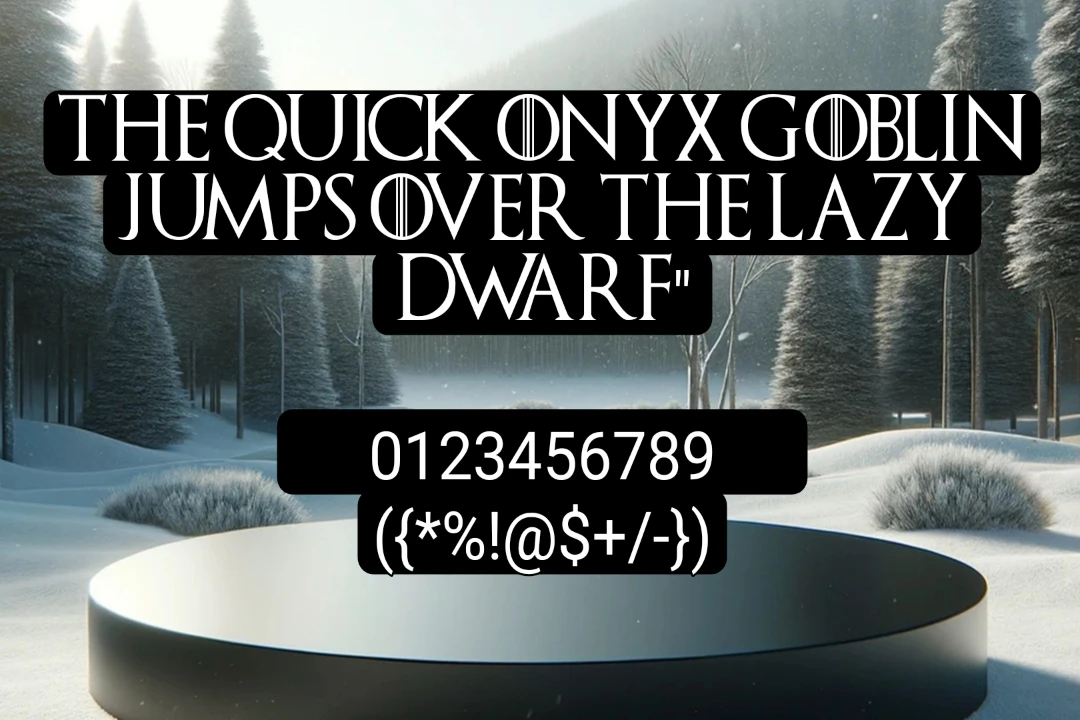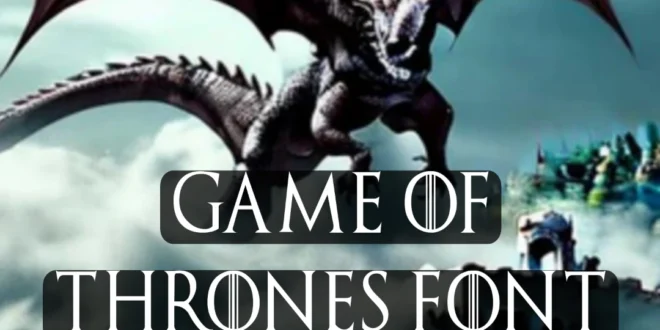
Game of Thrones Font: A Comprehensive Overview
The Game of Thrones font replicates the iconic logo typography from HBO’s globally popular TV series, Game of Thrones. This font is often associated with medieval and fantasy themes.
It was designed by Charlie Samways and initially released in 2012, with updates introduced in 2021.
It is a serif typeface, available in TrueType format, that captures the bold, dramatic essence of the series 22,23 and 24. You can pair it with Open Sans Font, its online generator tool will help you to convert all your simple characters into unique and elegant styles. Just copy and paste the text into this tool.
Key Features and Usage
Design Elements: The font includes distinctive uppercase characters, especially the elongated “T,” which mirrors the series’ logo. It supports uppercase and lowercase letters.
Applications: This typeface is widely used in merchandise designs (e.g., mugs, posters), fan art, branding projects, YouTube thumbnails, and other creative works that require a dramatic, medieval vibe.
| Designer | Charlie Samways |
| Type | Serif |
Similar Fonts to Game of Thrones Font
If you’re looking for alternatives, consider fonts like Trajan Pro, Blackletter, Berlin Email Serif Font, or other serif styles that evoke a medieval aesthetic.
Who designed the Game of Thrones Font?
It was designed by Charlie Samways in 2012. It was created to closely resemble the distinctive lettering seen in the iconic logo of the popular HBO series, Game of Thrones.
What type of font is the Game of Thrones font?
This font is a serif typeface with a medieval and dramatic look. It’s based on the original logo design and features sharp, elongated characters, making it suitable for fantasy and medieval-themed projects.
What are the best uses for the Game of Thrones texture?
This font is ideal for creating logos, banners, posters, merchandise, and fan art. It’s particularly popular for projects that want to evoke a medieval or fantasy atmosphere, making it perfect for themed events or content related to Game of Thrones.